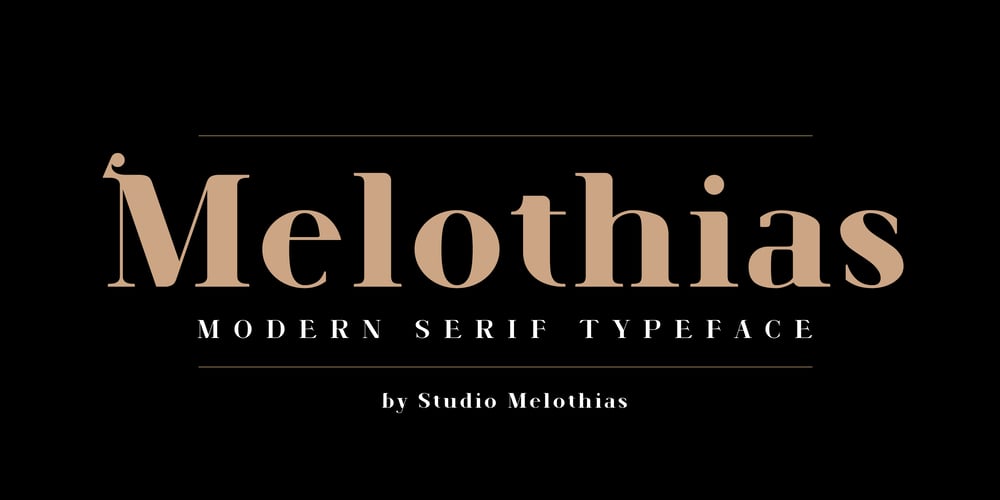
Melothias Font Family was designed by Mohsen Salehi and published by Melothias. Melothias contains 14 styles and family package options. Melothias and Melothias Decorative actually started as an idea for designing the logo of a sports company.Melothias, is inspired by the idea of mixing different “Didone” ,”Greek motifs”, ” ballgame” design yet features different proportions, curvesyet dignified, which give it a classy, playful and a more contemporary look.The extreme contrast between thick and thin strokes gives Melothias a harmonic, yet dignified and stylish look.It comes in 14 weights.Melothias is an elegant typeface well-suited for editorial design and display work in books, magazines, posters, and billboards.Melothias Decorative can be used independently or in combination with Melothias for initials or headlines.